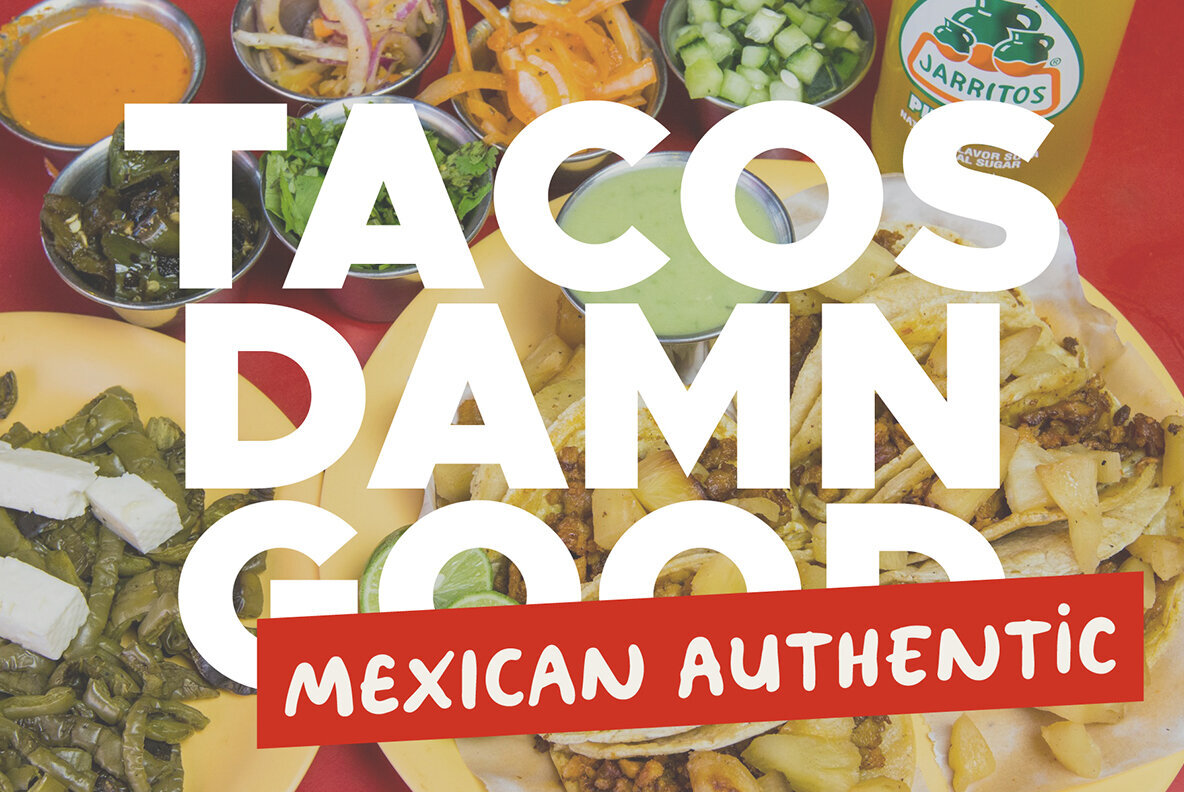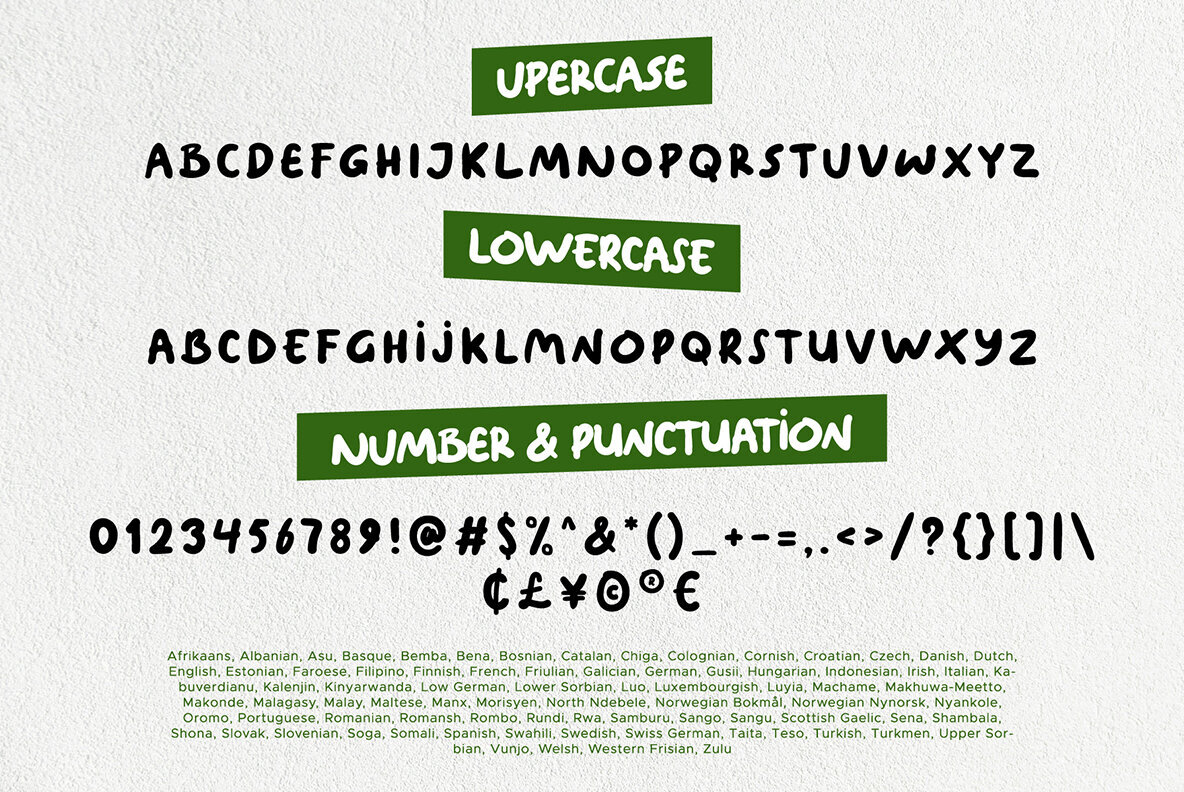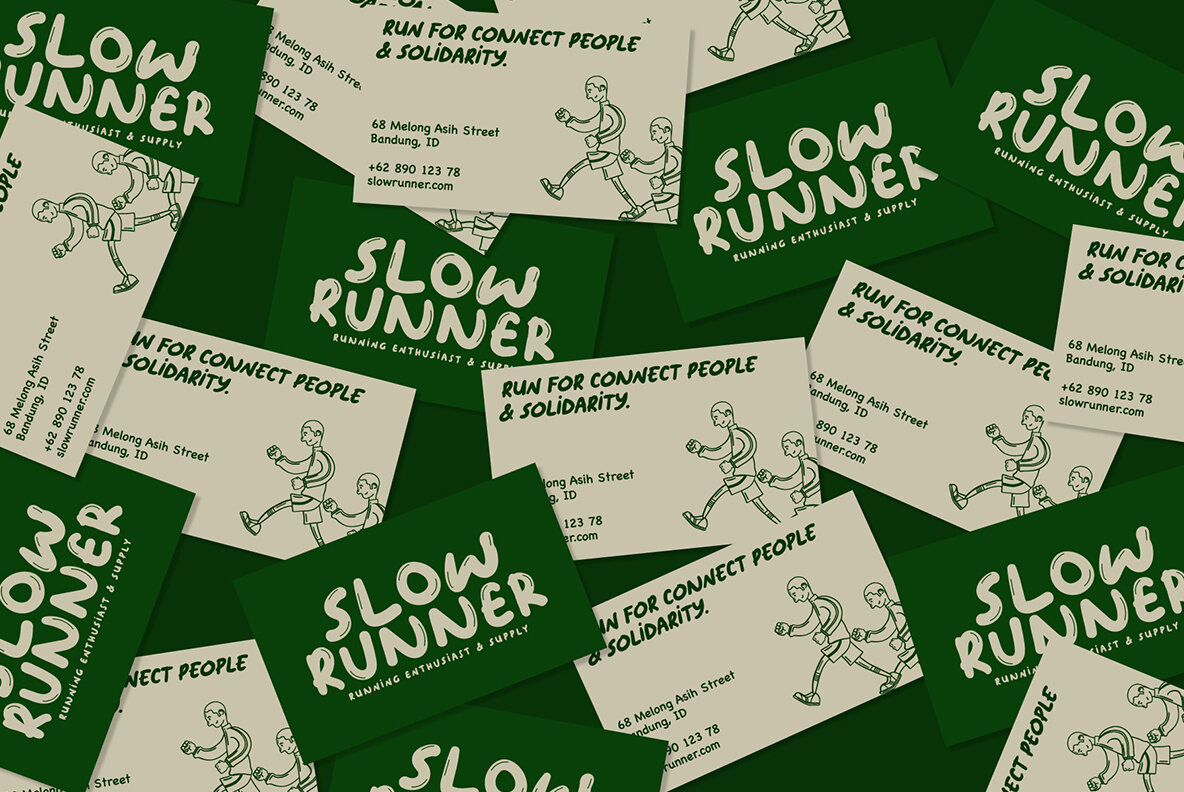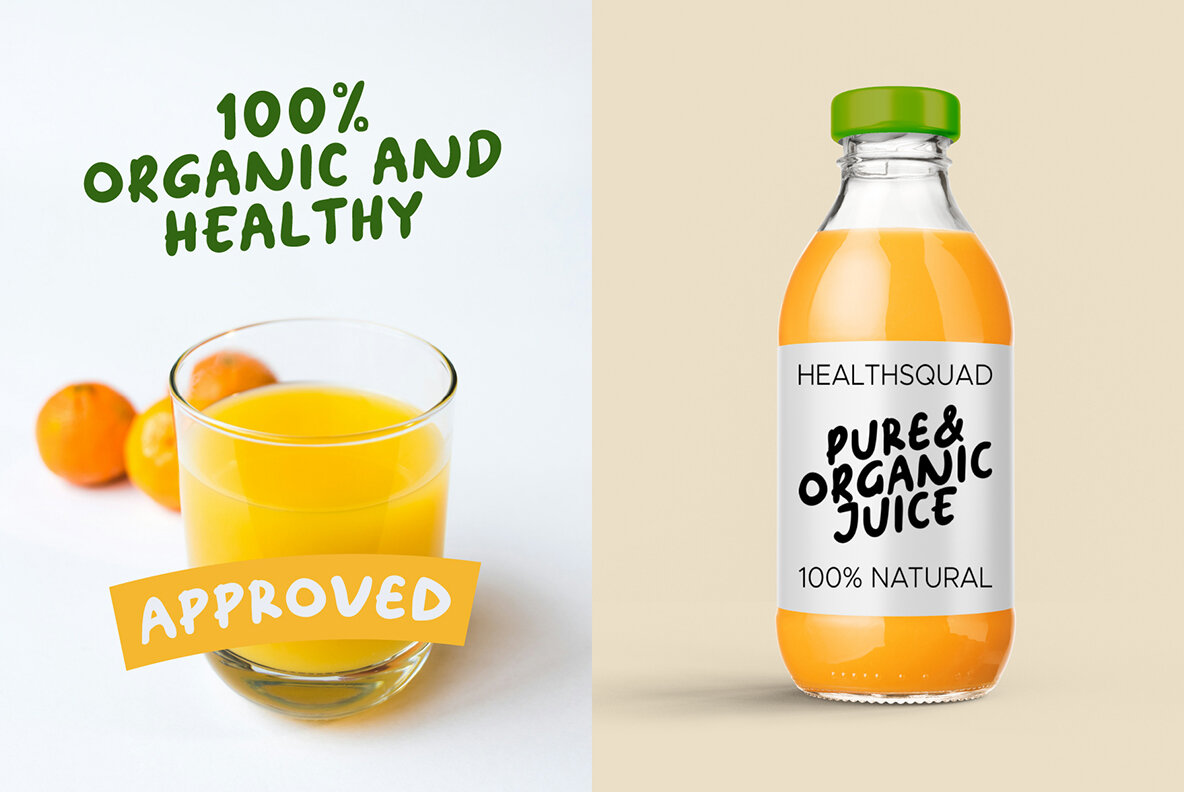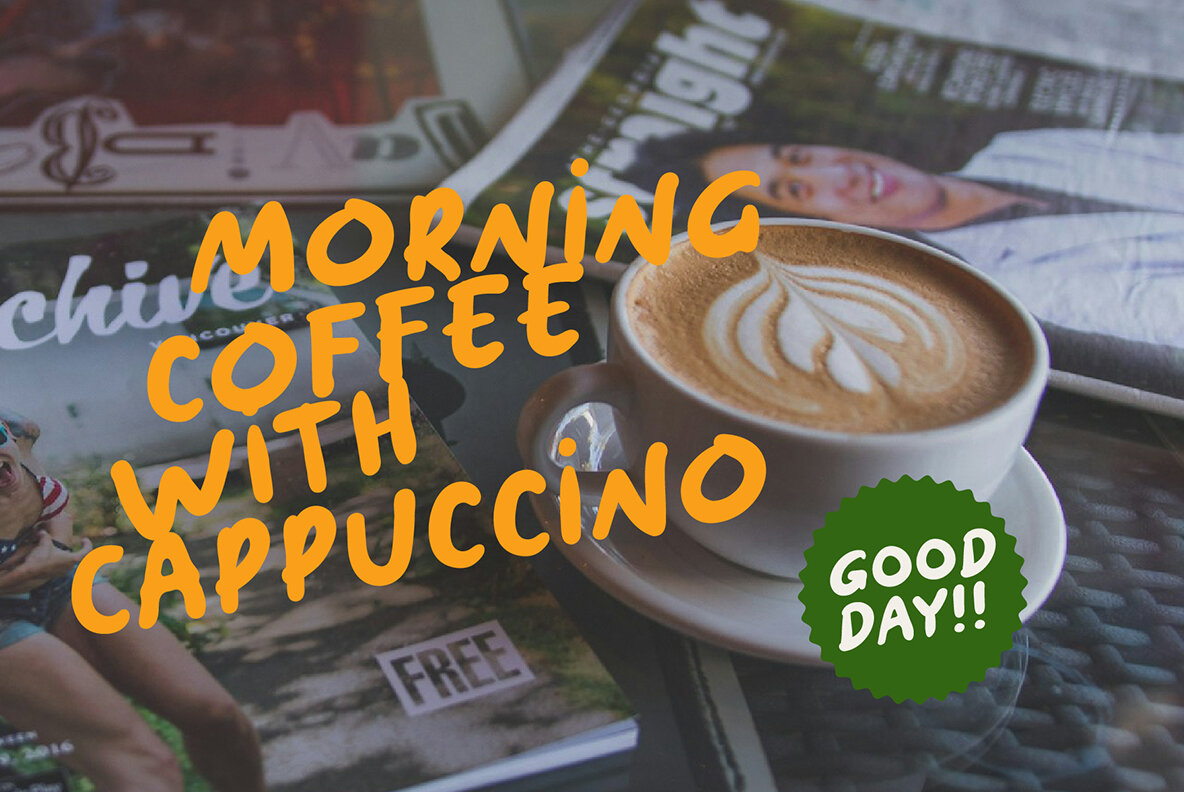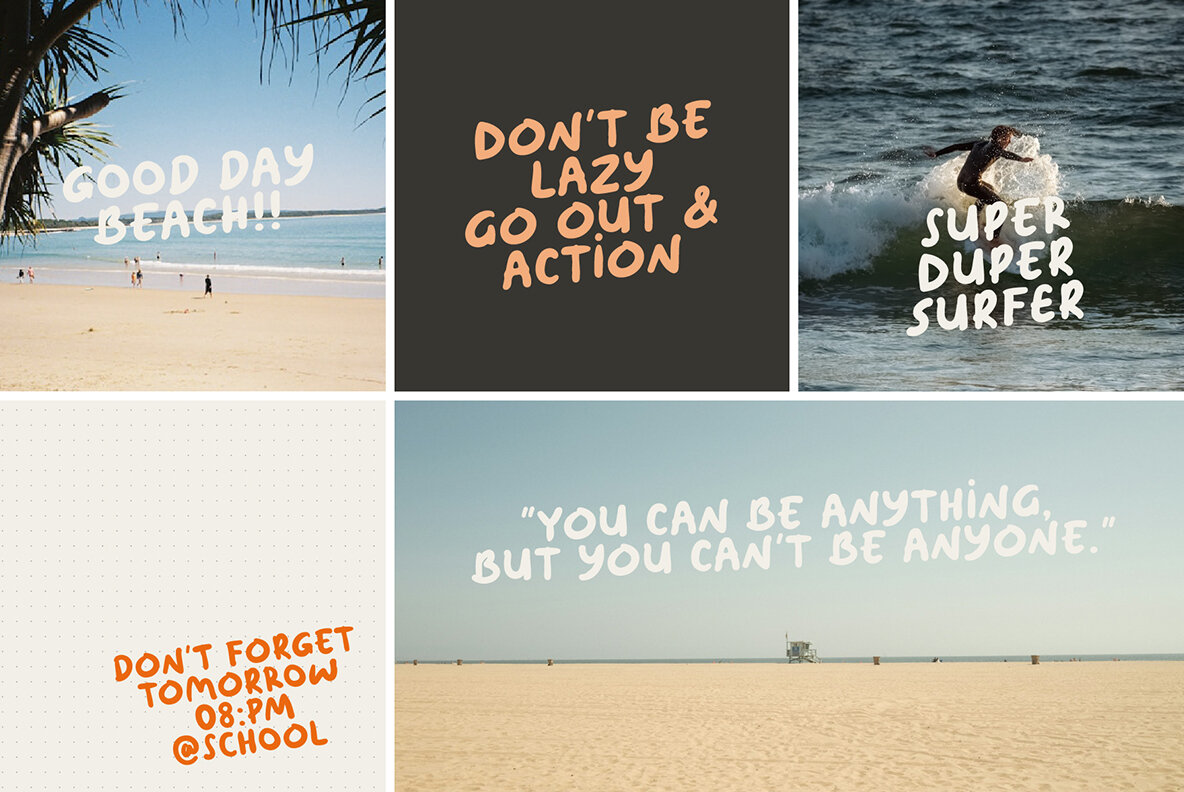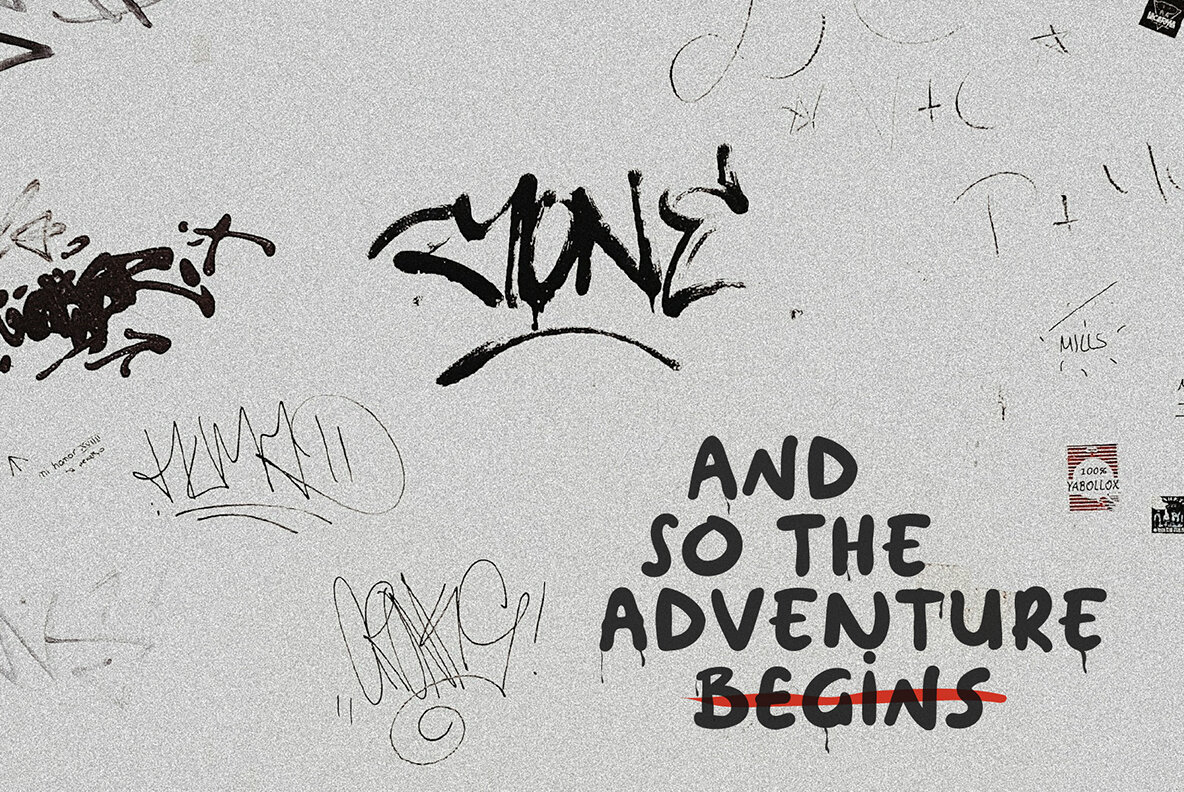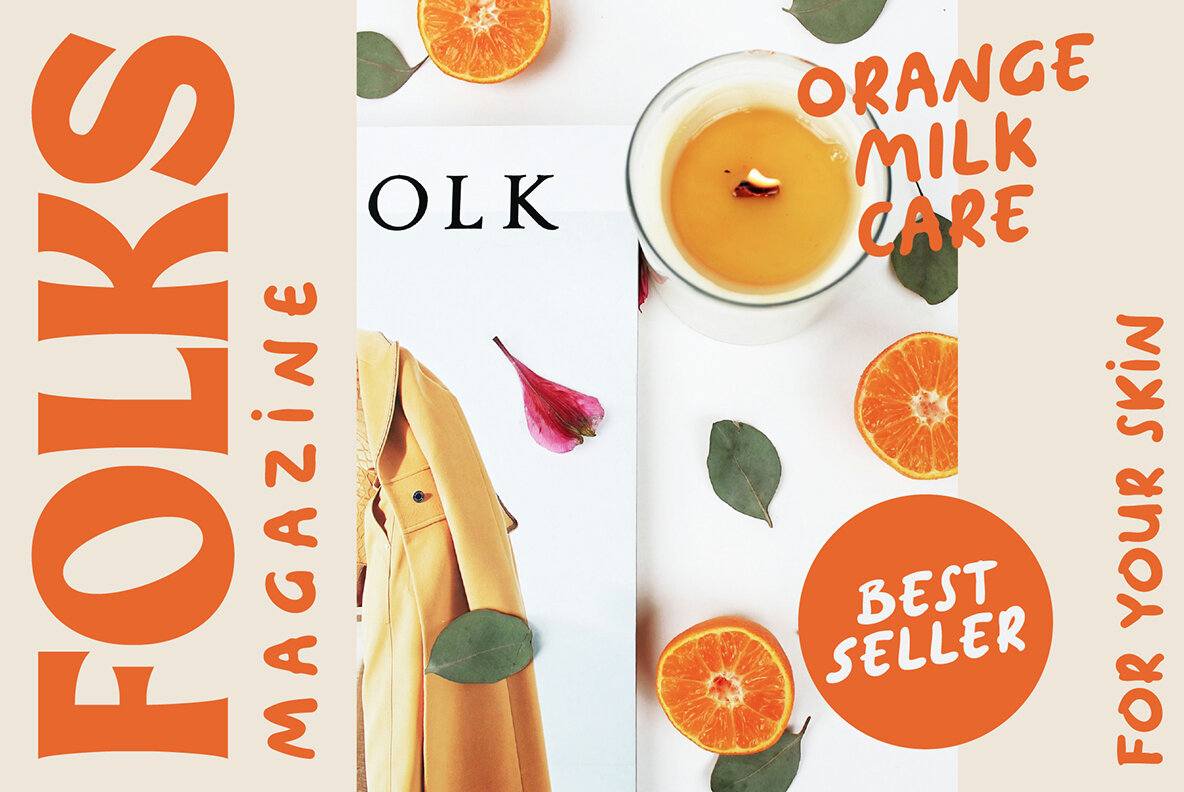
Pinokyo Font
Pino Kyo
Pinokyo is an enchanting sans serif handwriting font designed to bring a sense of warmth and charm to your projects. Its thick strokes and rounded edges emulate the innocence of children's handwriting, making it an ideal choice for designs aimed at a younger audience. This font effortlessly infuses personality into whatever you craft, creating an inviting and hospitable atmosphere.
Highly versatile, Pinokyo excels in a variety of applications, including headings, body text, and logos. Whether you're working on a children's book, designing a greeting card, or developing engaging social media content, this font provides a unique flair that captures attention and evokes a friendly warmth. Its playful design ensures your projects stand out, offering a unique touch to your creative endeavors.